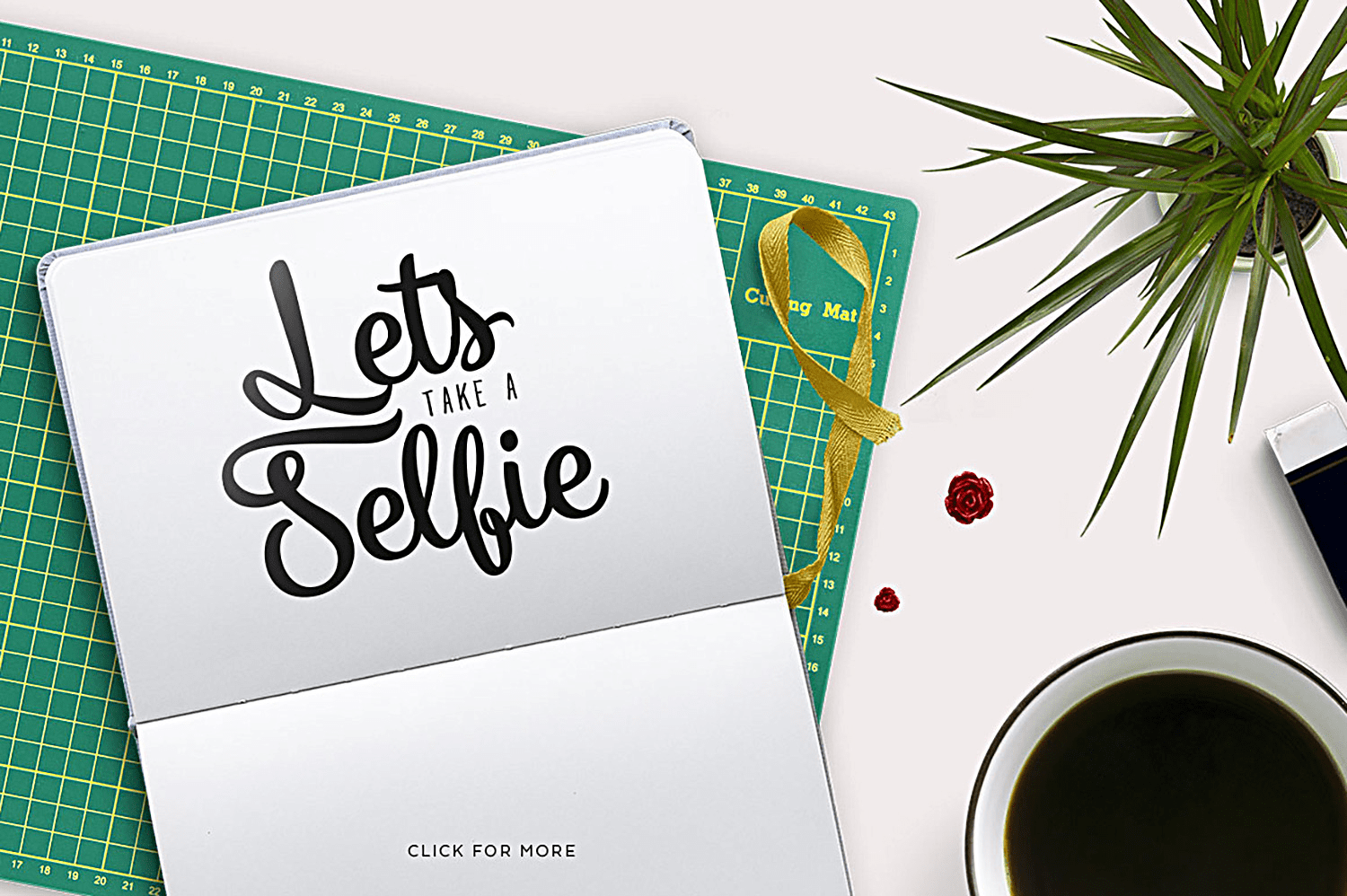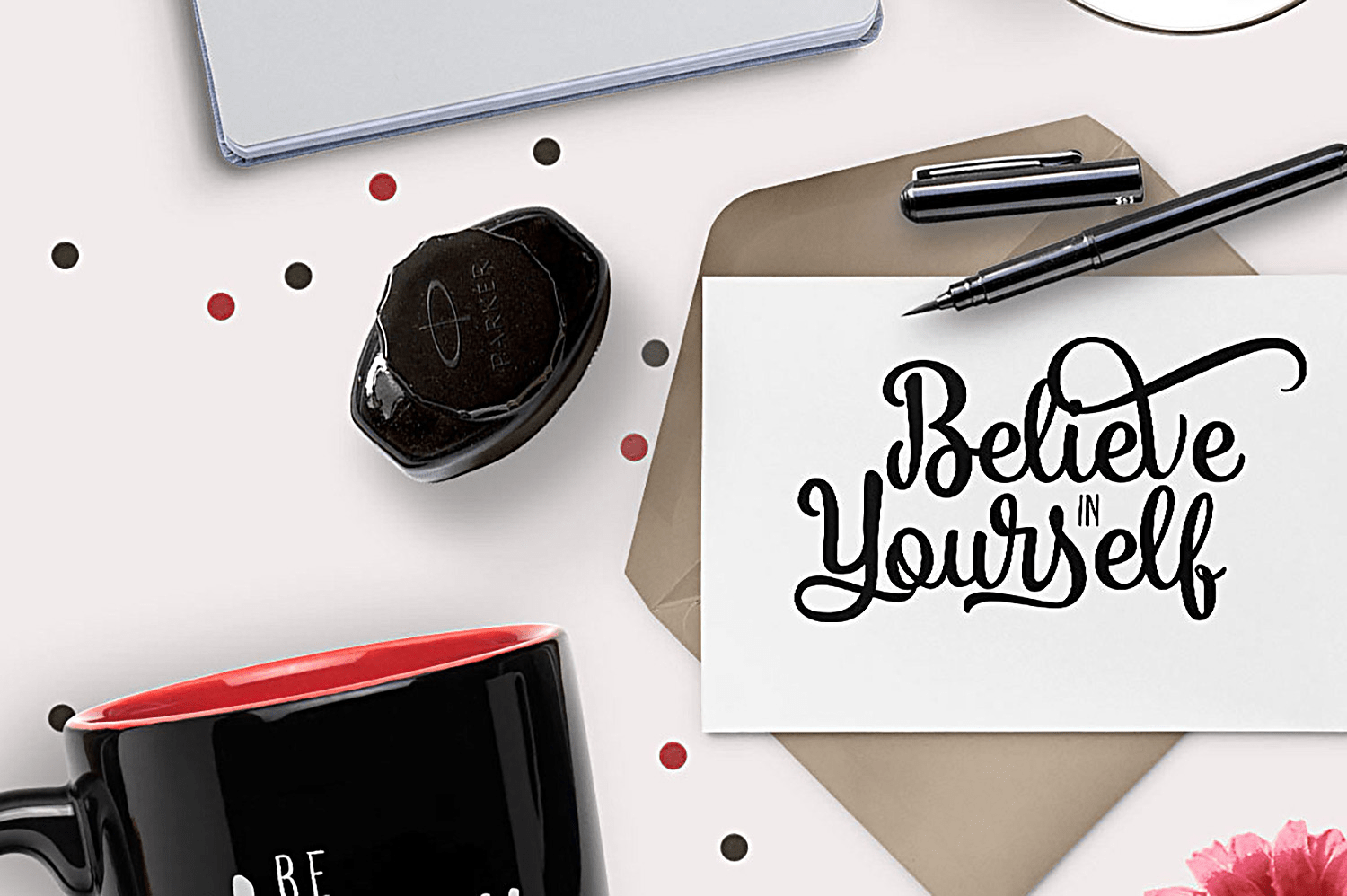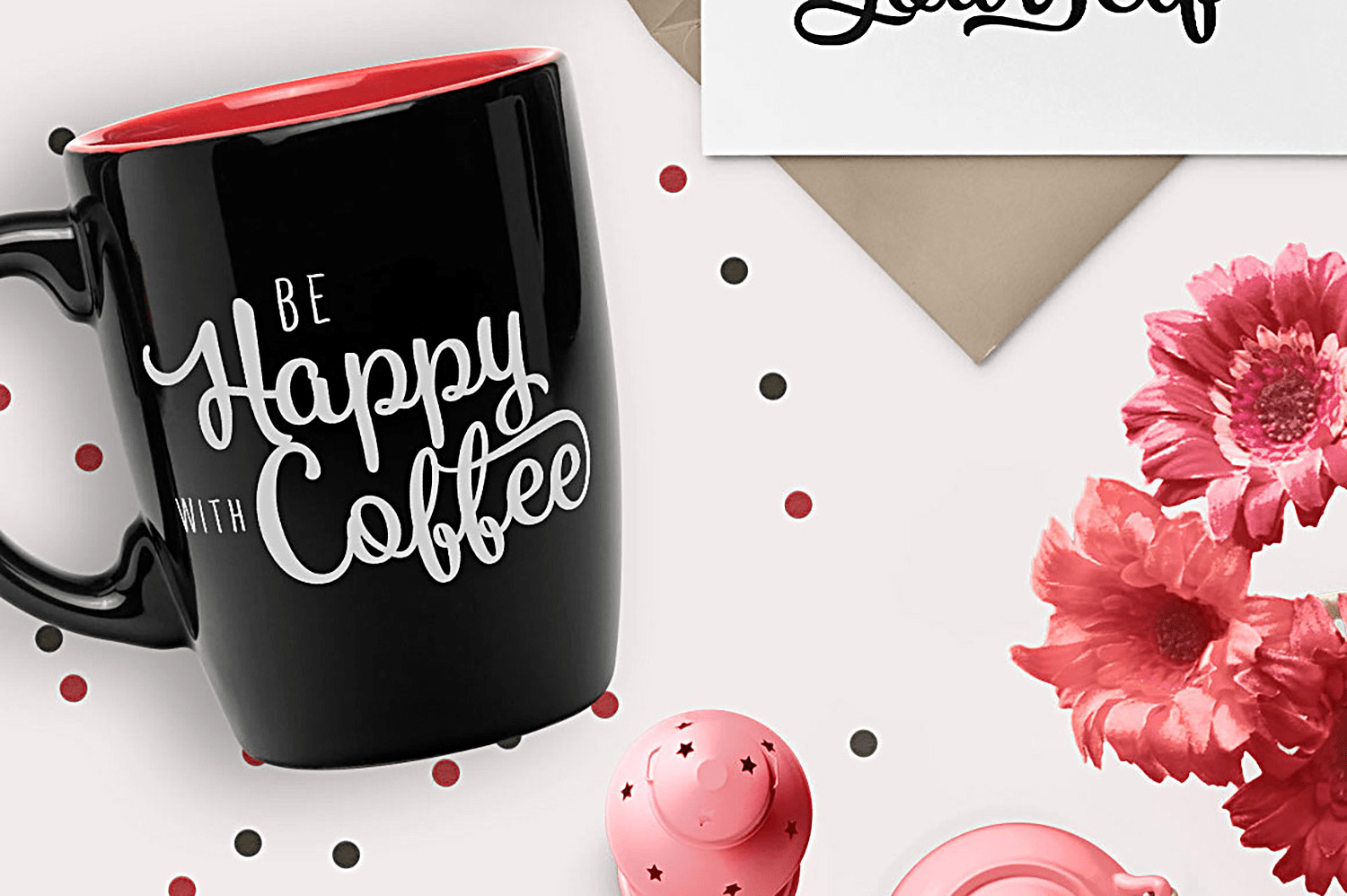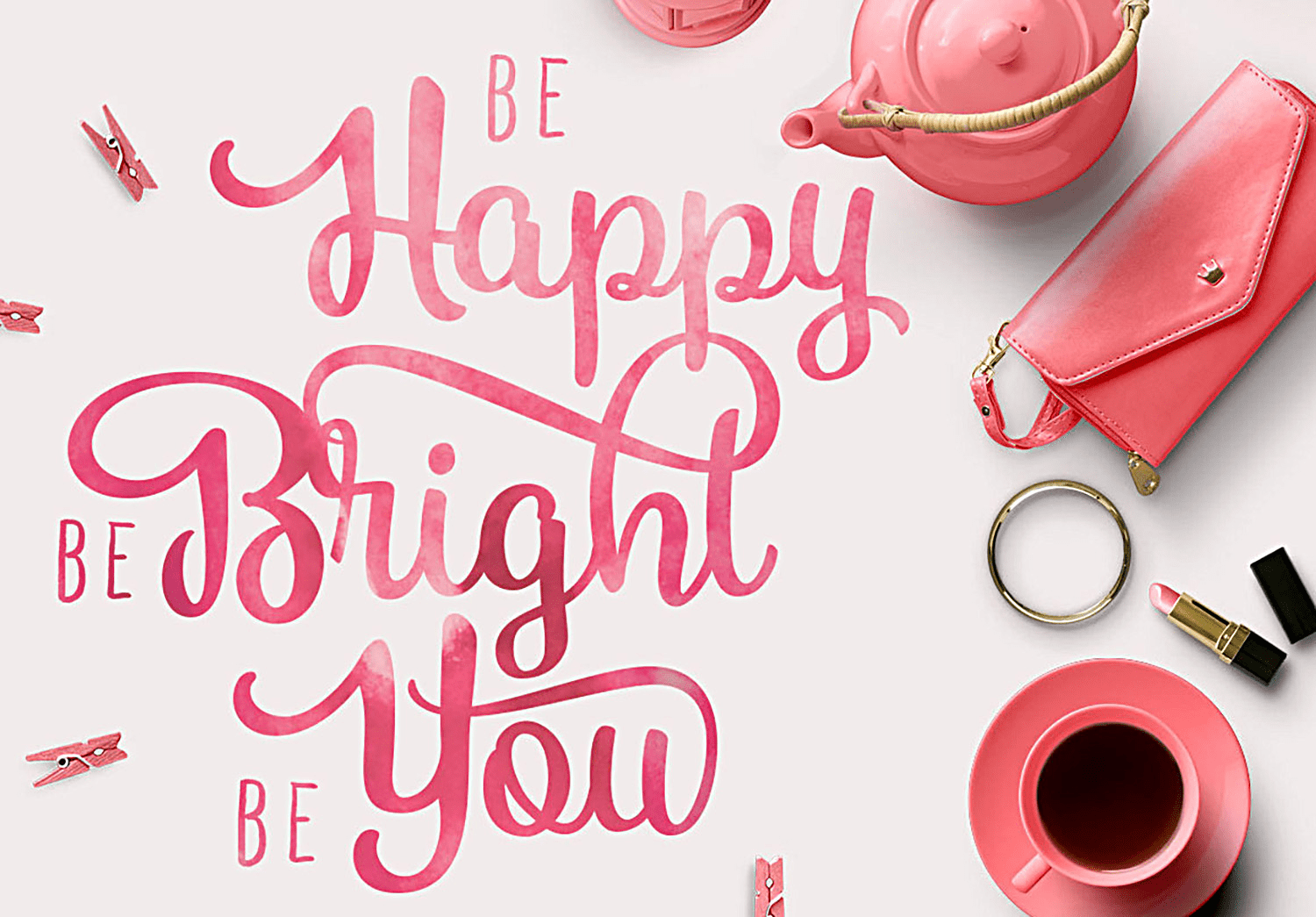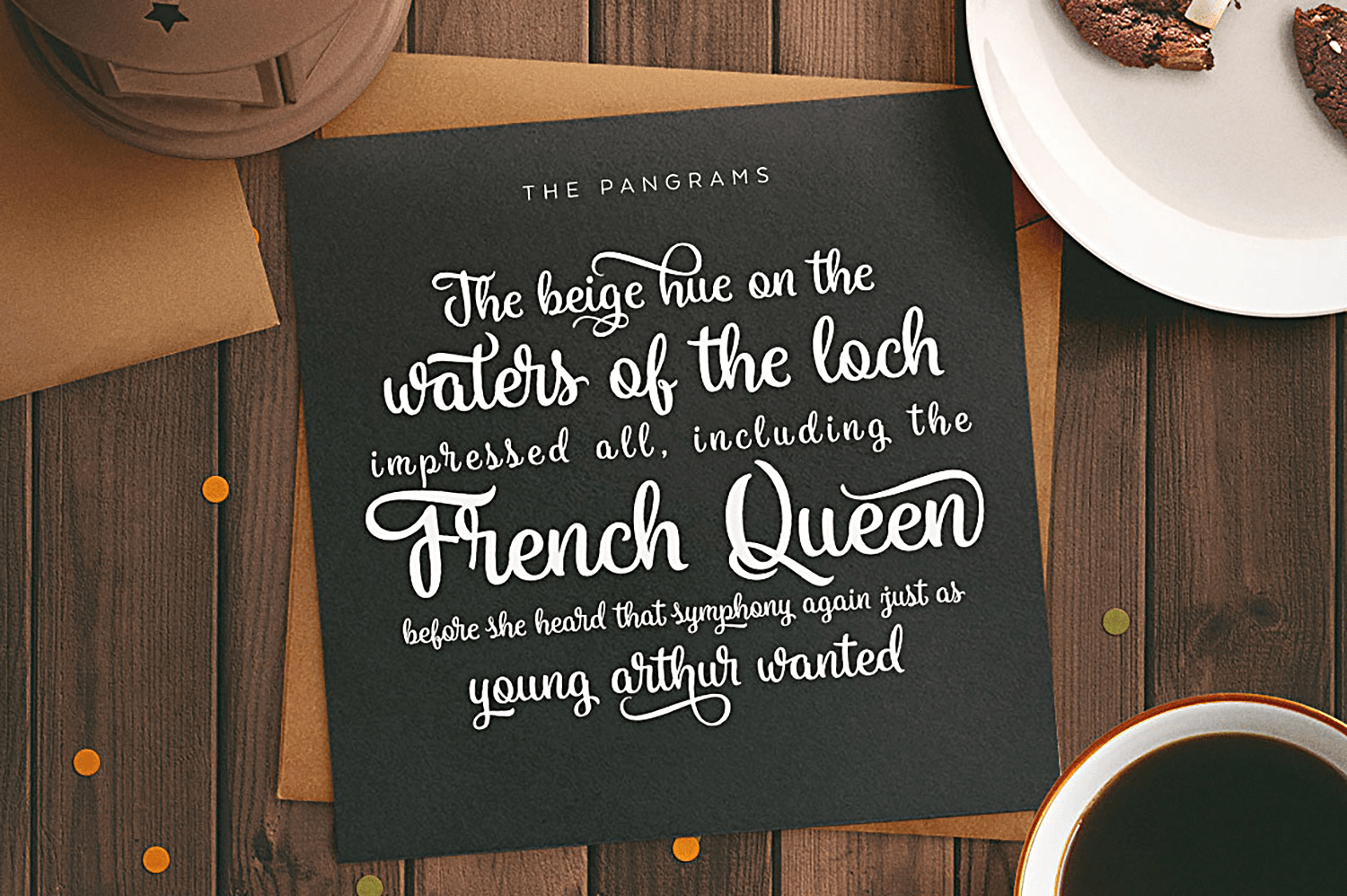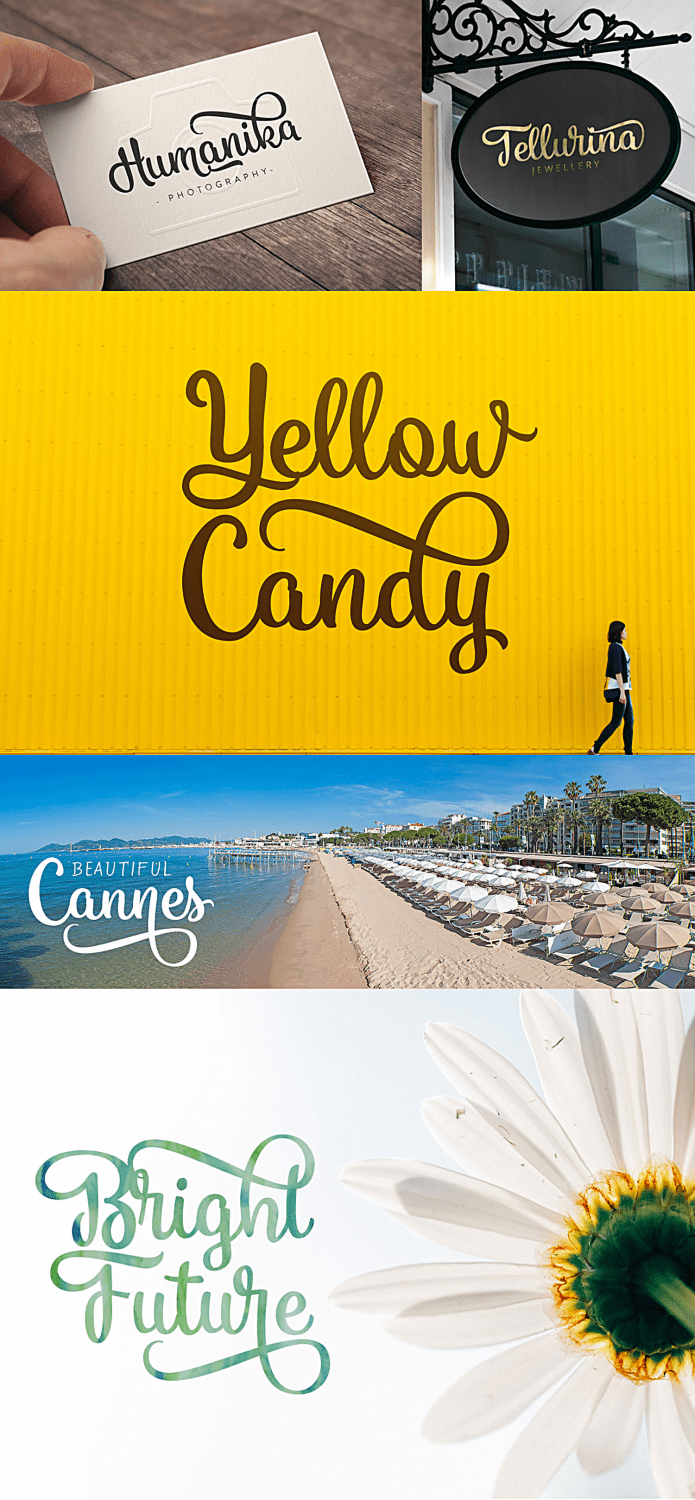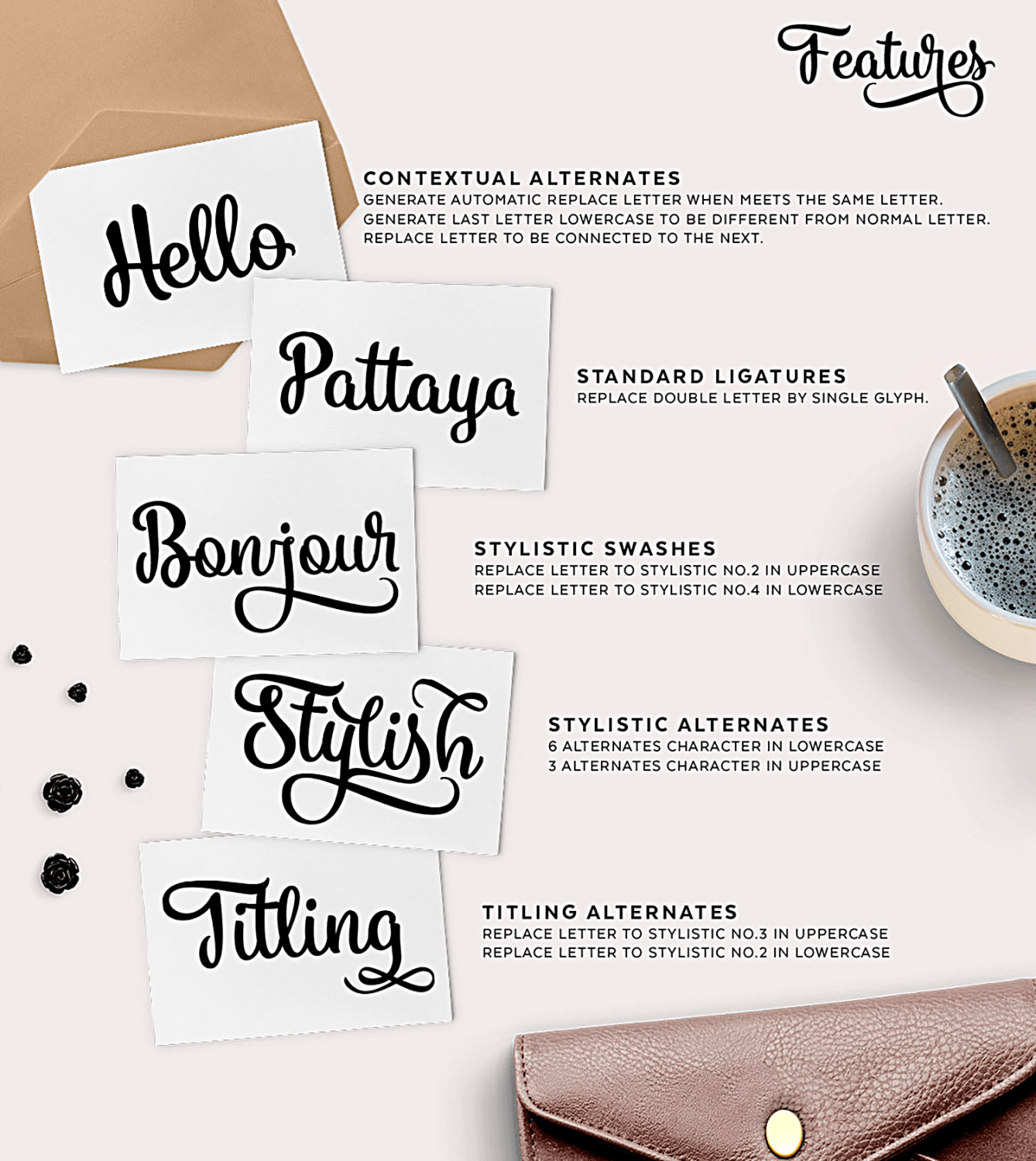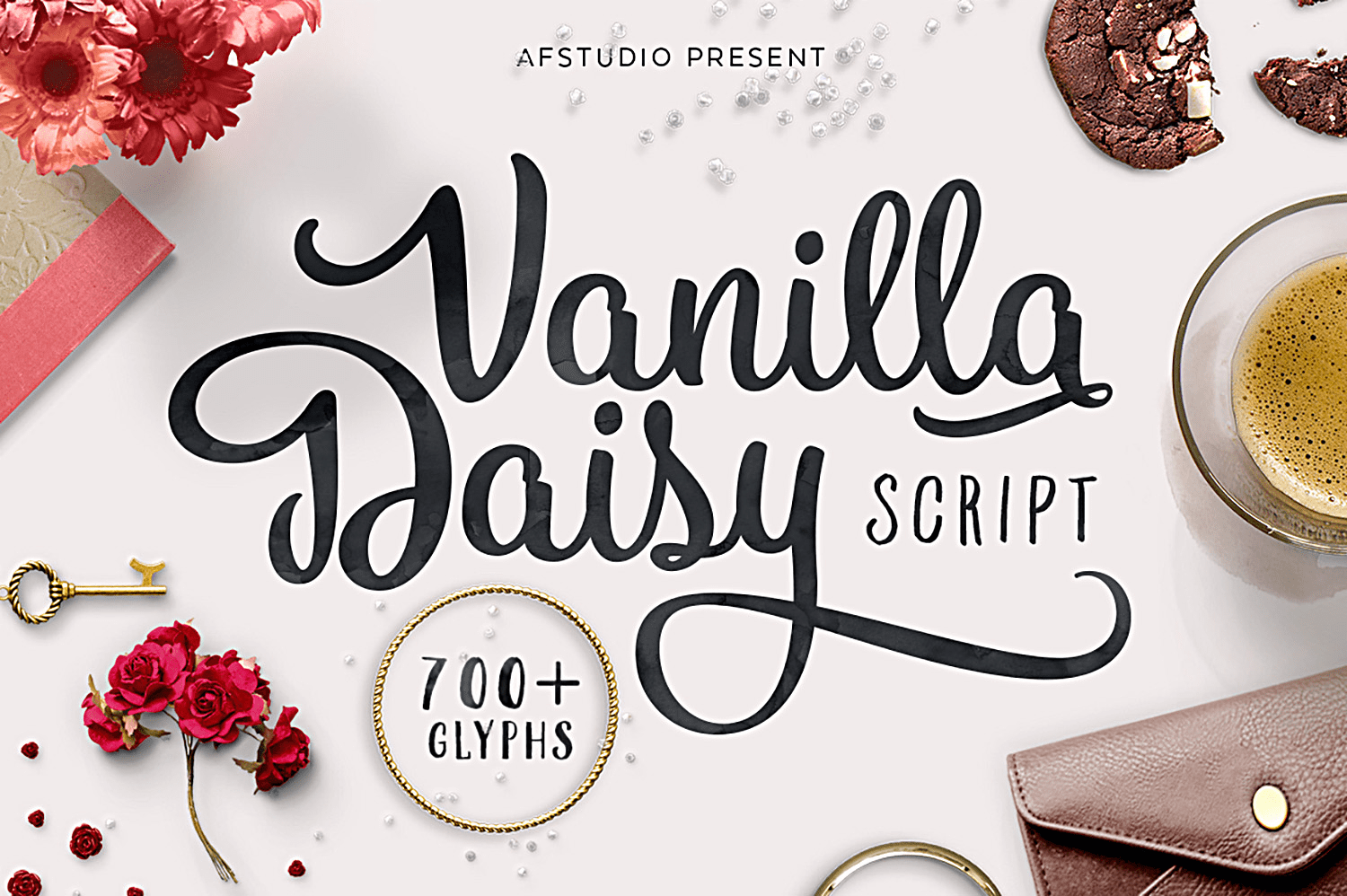
Vanilla Daisy
About Vanilla Daisy
Finally, after long time creating this one, let me introduce Vanilla Daisy Script. Script font that have a huge alternate characters this gives many options to choose the best for you. Inspired by the dynamic style of hand lettering script and created…